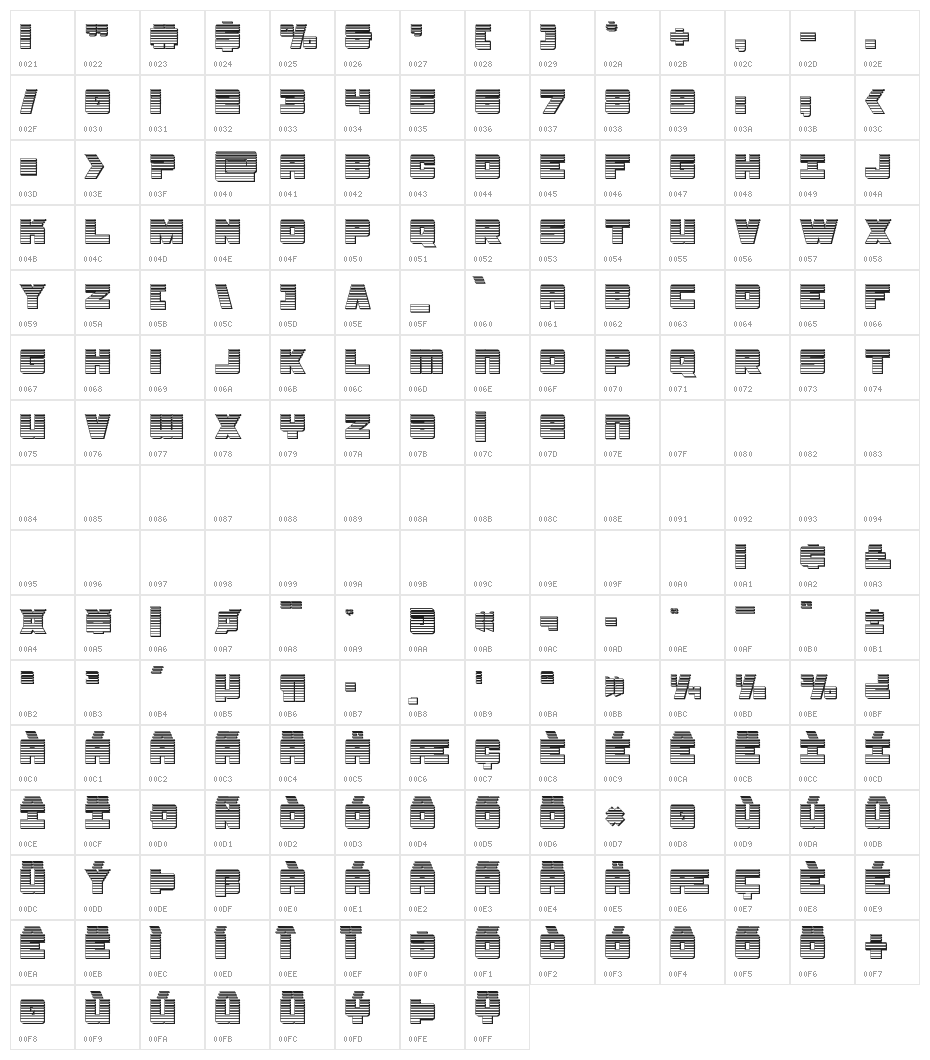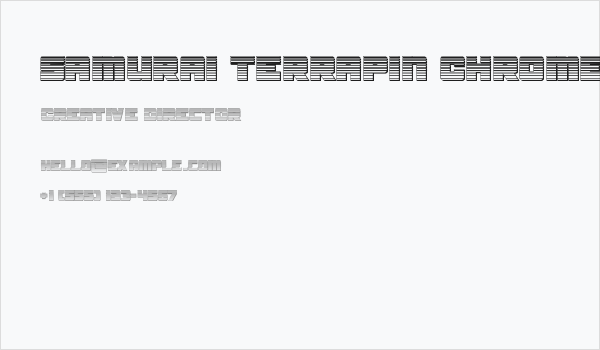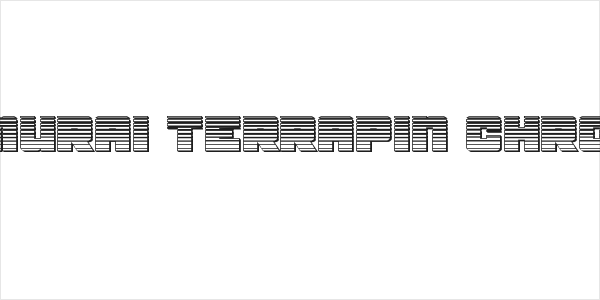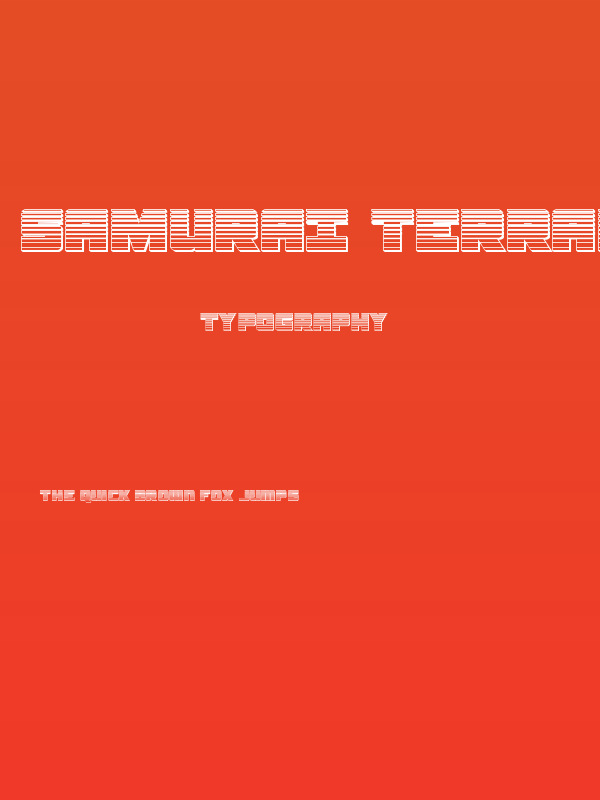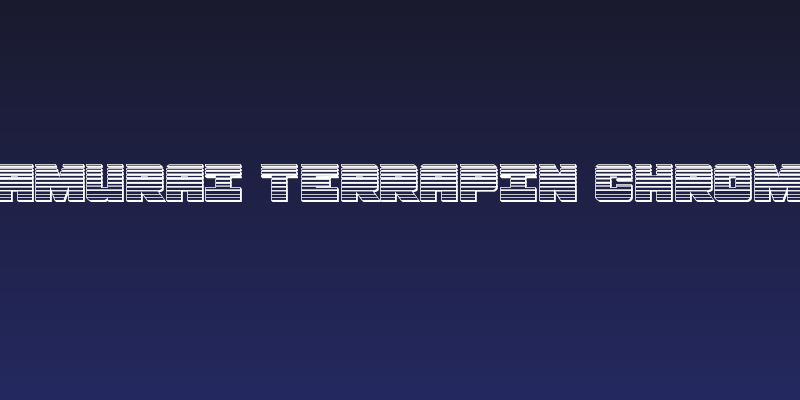
Samurai Terrapin Chrome Font
Samurai Terrapin Chrome Description
This font features a bold, decorative style with a unique layered effect. Each character is composed of multiple horizontal lines, creating a three-dimensional appearance. The design is geometric and structured, with sharp angles and consistent line thickness throughout. The uppercase and lowercase letters maintain a uniform height, contributing to a cohesive look. Numbers and special characters follow the same design principles, ensuring visual harmony across all elements. The font's distinct style makes it ideal for eye-catching designs.
Proposed ProjectsThis font is perfect for projects that require a striking visual impact, such as posters, album covers, branding, and digital artwork. Its unique style can also be used for video game graphics or futuristic-themed designs.